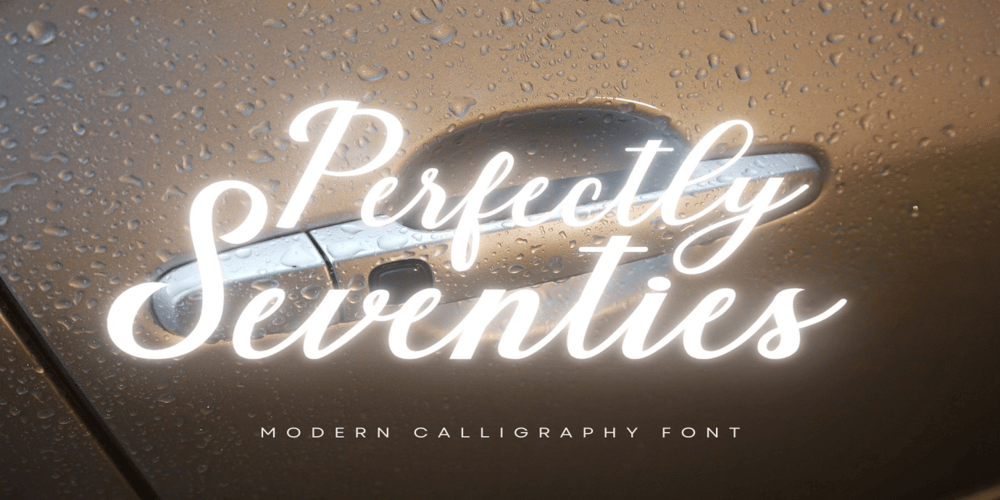
Perfect Seventies Font Family was designed by Stanley Morison and published by Adita Fonts. Perfect Seventies contains 1 styles and family package options. Perfectly Seventies is a modern, feminine script font. With its elegant style, it quotes font Heais perfect for photography, watermarks, quotes, blog headers, posters, weddings, and much more!